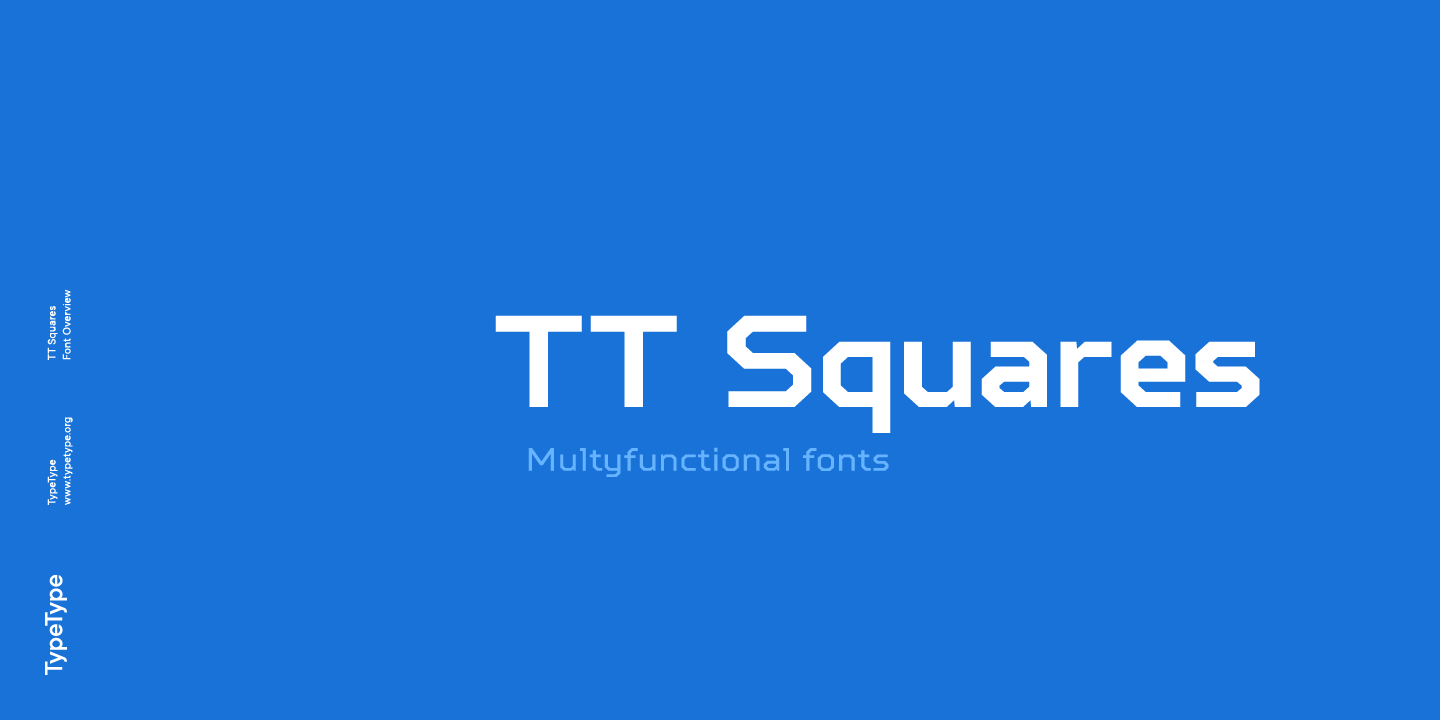
Looking to imbue your designs with a sense of robust modernity, geometric precision, and undeniable strength? TT Squares Font Free Download offers an excellent opportunity to explore a powerful and highly versatile typeface. It's crucial to remember, however, that while a TT Squares Font Free Download might be available for personal and testing purposes, a commercial license is required for any professional or revenue-generating projects. This ensures legal compliance and provides essential support to the talented font designers.
The TT Squares Font is exceptionally well-suited for projects that demand a bold, structured, and contemporary presence. Its often geometric, blocky, or slightly industrial design with strong, clear lines makes it an ideal choice for impactful headlines, striking posters, and aggressive branding. It's perfect for gaming titles, technology company logos, and sports merchandise where a powerful and memorable aesthetic is desired. Furthermore, consider TT Squares Font for album artwork, urban streetwear designs, and digital advertisements that aim to stand out with a bold, uncompromising statement. Its robust character also lends itself well to large-scale signage, architectural renders, and data-heavy interfaces.
What makes the TT Squares Font so exciting is its immediate ability to convey strength, modernity, and a sense of unyielding precision. It often features sharp angles, solid forms, and a deliberate construction that sets it apart from more organic typefaces. This characteristic allows it to communicate power, efficiency, and a cutting-edge sensibility, making your message resonate with immediate impact. It’s a font that doesn't just display text; it asserts its presence, adding a layer of contemporary dynamism and unyielding confidence to any creative endeavor. Its distinctive aesthetic ensures your work will capture attention with undeniable force and a memorable presence.
The TT Squares Font family typically boasts a comprehensive range of weights to maximize its utility and allow for diverse typographic expressions. You'll often find options from Thin and Light to Regular, Medium, SemiBold, and Bold, usually accompanied by corresponding italic styles. More extensive families might even include ExtraBold or Black weights, providing even greater flexibility for creating robust visual hierarchies and emphasizing key information. This broad spectrum ensures designers can maintain a consistent visual theme while adapting the font to various design needs.